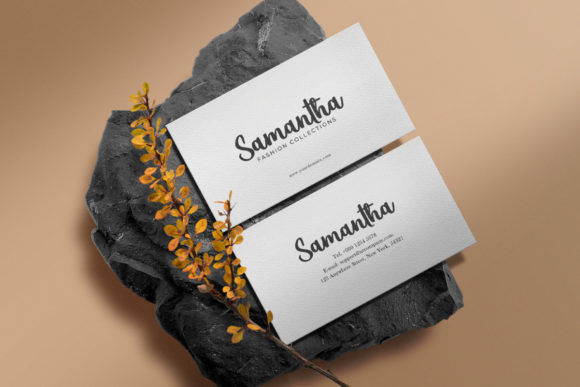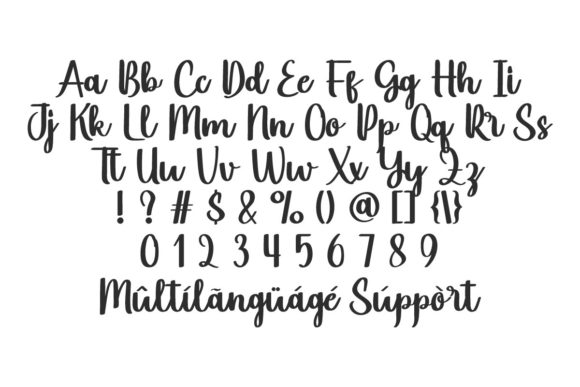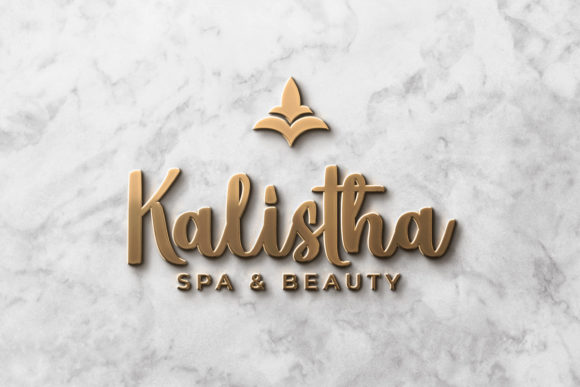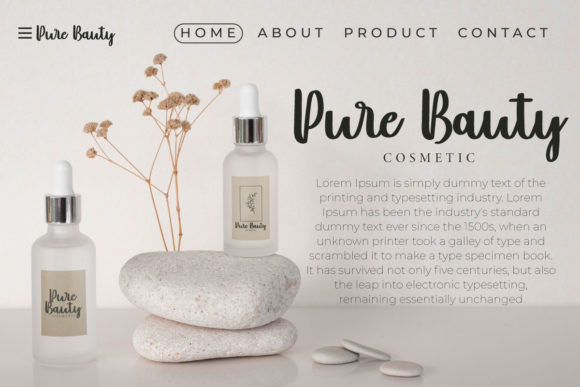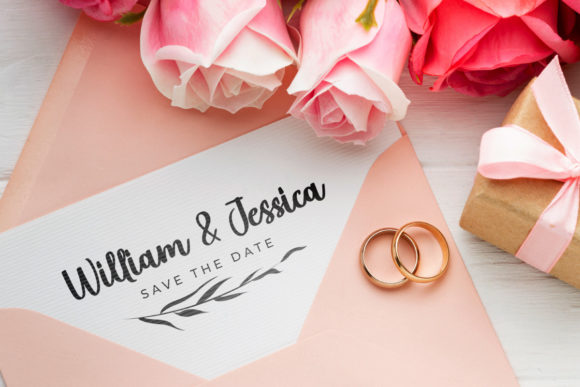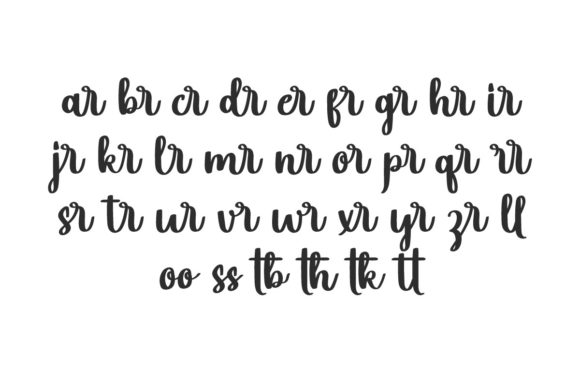
Introducing Chicken Nuggets Font: The Sweet and Whimsical Script Font You Need!
Are you a designer or crafter looking for a font that adds a touch of luxury and playfulness to your design projects? Look no further than Chicken Nuggets Font! This sweet, whimsical, and flowing script font is sure to make your designs stand out from the crowd. In this article, we’ll dive into the features and benefits of Chicken Nuggets Font, and explore how it can elevate your design projects to the next level.
A Font that Dances with Joy
Chicken Nuggets Font is a unique and eye-catching script font that features characters that dance along the baseline. This flowing design gives the font a sense of movement and energy, making it perfect for designs that need a touch of whimsy and playfulness. Whether you’re creating a logo, branding materials, or social media graphics, Chicken Nuggets Font is sure to add a spark of luxury and sophistication.
One of the best things about Chicken Nuggets Font is that it’s PUA (Private Use Area) encoded. This means that you can access all glyphs and swashes with ease, giving you maximum flexibility and creative control over your designs. With PUA encoding, you can easily access alternative characters, ligatures, and swashes to add an extra layer of customization to your designs.
Chicken Nuggets Font is perfect for designers and crafters who want to add a touch of luxury and sophistication to their designs. Whether you’re creating:
- Digital papers and planners
- Craft files and SVG designs
- Web graphics and headings
Chicken Nuggets Font is the perfect choice. Its unique and flowing design makes it versatile enough to use in a wide range of design projects, from elegant and sophisticated to playful and whimsical.
Benefits of Using Chicken Nuggets Font
So why choose Chicken Nuggets Font for your design projects? Here are just a few benefits:
- Unique and eye-catching design: Chicken Nuggets Font features a one-of-a-kind design that’s sure to make your designs stand out from the crowd.
- PUA encoded for easy access: With PUA encoding, you can easily access all glyphs and swashes to add an extra layer of customization to your designs.
- Versatile and flexible: Chicken Nuggets Font is perfect for a wide range of design projects, from logos and branding materials to social media graphics and digital papers.
- Luxury and sophisticated feel: The flowing design of Chicken Nuggets Font gives it a luxurious and sophisticated feel that’s perfect for high-end designs.
In conclusion, Chicken Nuggets Font is a sweet, whimsical, and flowing script font that’s perfect for designers and crafters who want to add a touch of luxury and sophistication to their designs. With its unique and eye-catching design, PUA encoding, and versatility, Chicken Nuggets Font is the perfect choice for a wide range of design projects. So why wait? Download Chicken Nuggets Font today and start creating stunning designs that will leave a lasting impression!